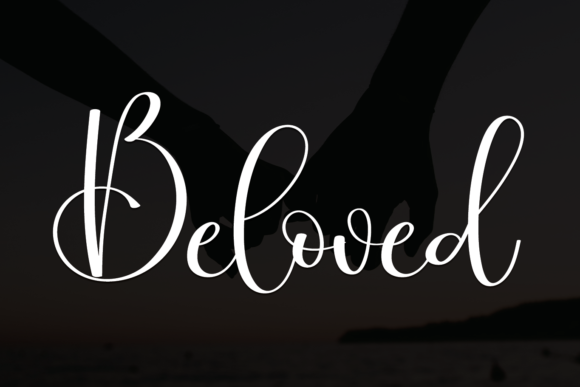
Have you ever stared at a blank page, waiting for inspiration to strike? For many of us, the blank slate can be daunting, but the right font can be the catalyst that sparks creativity. It’s in these moments that we search for that perfect combination of style and elegance to bring our ideas to life.
Enter the Beloved Font, a masterfully designed handwritten font that embodies the perfect blend of classic calligraphy and modern flair. Its versatility makes it an ideal choice for designers seeking to elevate their projects to new heights. With the Beloved Font, you’ll find yourself effortlessly crafting beautiful typography that leaves a lasting impression.
Whether you’re a seasoned designer or just starting out, the Beloved Font is a valuable addition to your toolkit. Its timeless charm and adaptability make it a true favorite among creatives, and for good reason – it has the power to transform your work into something truly extraordinary.
Key Features of Beloved Font
- Unique Characteristics: Beloved Font features a unique blend of elegant and rustic elements, with intricate details and subtle texture, making it perfect for creating a sense of warmth and sophistication in various design projects.
- Font Family: Beloved Font is a part of a comprehensive font family, which includes multiple weights, from Light to Bold, and various styles, such as Regular, Italic, and Bold Italic, allowing designers to achieve a cohesive look across different design elements.
- Customizability: Beloved Font offers advanced typographic features, including ligatures, swashes, and ornaments, which can be easily customized using font editors or design software, enabling designers to create unique and personalized designs.
Beloved Font Review
Overall, I think the Beloved Font is a great addition to any designer’s toolkit, especially for those who love a good script font. ✨ Its elegant and sophisticated design makes it perfect for invitations, wedding stationery, and other special occasions.
- ✨ Highly customizable: The Beloved Font comes with a wide range of customization options, including font sizes, colors, and spacing.
- ✨ Beautiful script design: The font features a beautiful, flowing script design that’s perfect for adding a touch of elegance to any design.
- ⚠️ Limited support for non-Latin languages: Unfortunately, the Beloved Font only supports Latin languages, which may be a limitation for designers who need to work with non-Latin scripts.
- ⚠️ May not be suitable for body text: While the font is perfect for headlines and titles, it may not be the best choice for body text, as it can be difficult to read at smaller font sizes.
Overall, I think the Beloved Font is a great choice for designers who need a beautiful, elegant script font for special occasions. While it may have a few limitations, its customization options and beautiful design make it a worthwhile addition to any designer’s toolkit.
Beloved Font is ideal for creating romantic and elegant designs. Use it for:
– Valentine’s Day and anniversary cards
– Luxury branding and packaging
For the best results, pair Beloved Font with a high-quality image or background to create a sophisticated and eye-catching design.